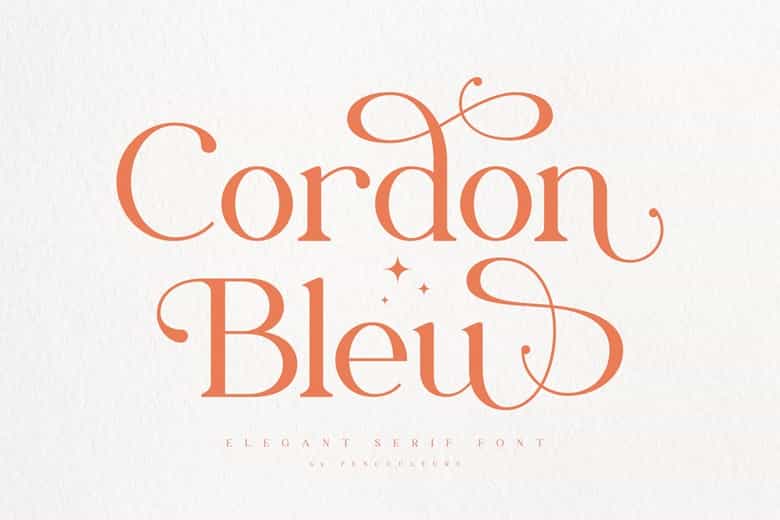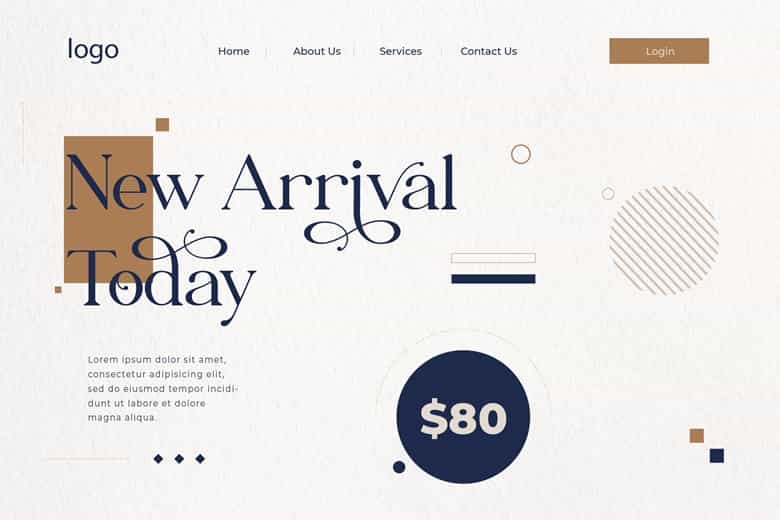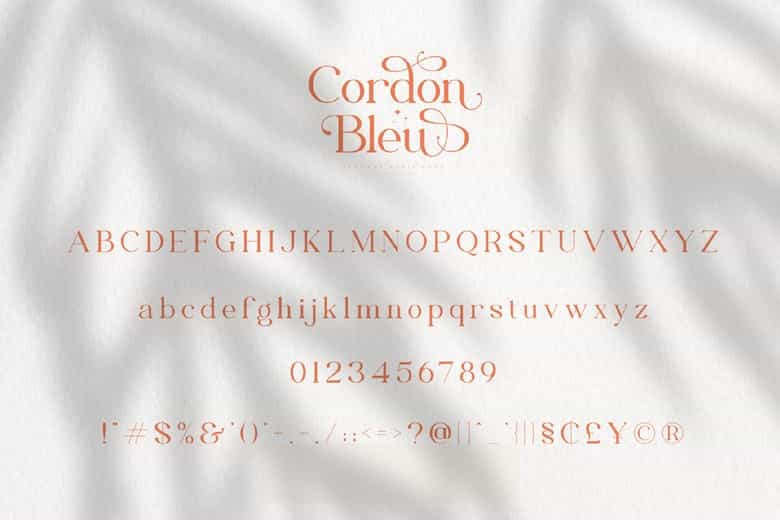
Cordon bleu is a contemporary and stylish serif typeface with more than 50 alternate. As for the alternates that have an elegant shape, this font will be perfect for various purposes such as branding, logo design, magazine, poster, Instagram feed, and a lot more that you may come across with this type of font.